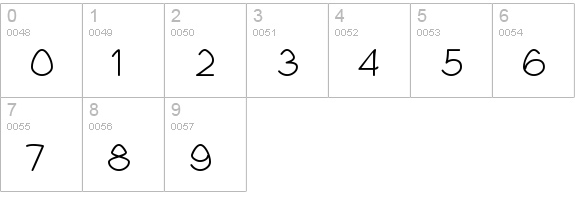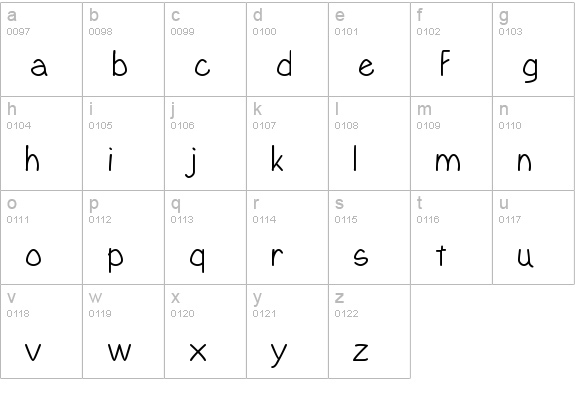
Yahosch Plain Font Details
Yahosch Plain font is a modern and clean typeface that exudes simplicity and elegance. Its sleek lines and minimalistic design make it perfect for a wide range of design projects, from branding to editorial layouts. This versatile font is ideal for creating a sophisticated and professional look. What sets Yahosch Plain font apart is that it is available for free download at FontsMarket.com. This means that you can access this beautiful font without any cost, making it a great choice for designers on a budget. Whether you're working on a personal project or a client's design, Yahosch Plain font is a valuable addition to your typographic toolkit. With its timeless appeal and effortless style, Yahosch Plain font is sure to elevate your designs and make a lasting impression. Download it today and unleash your creativity with this stunning typeface.